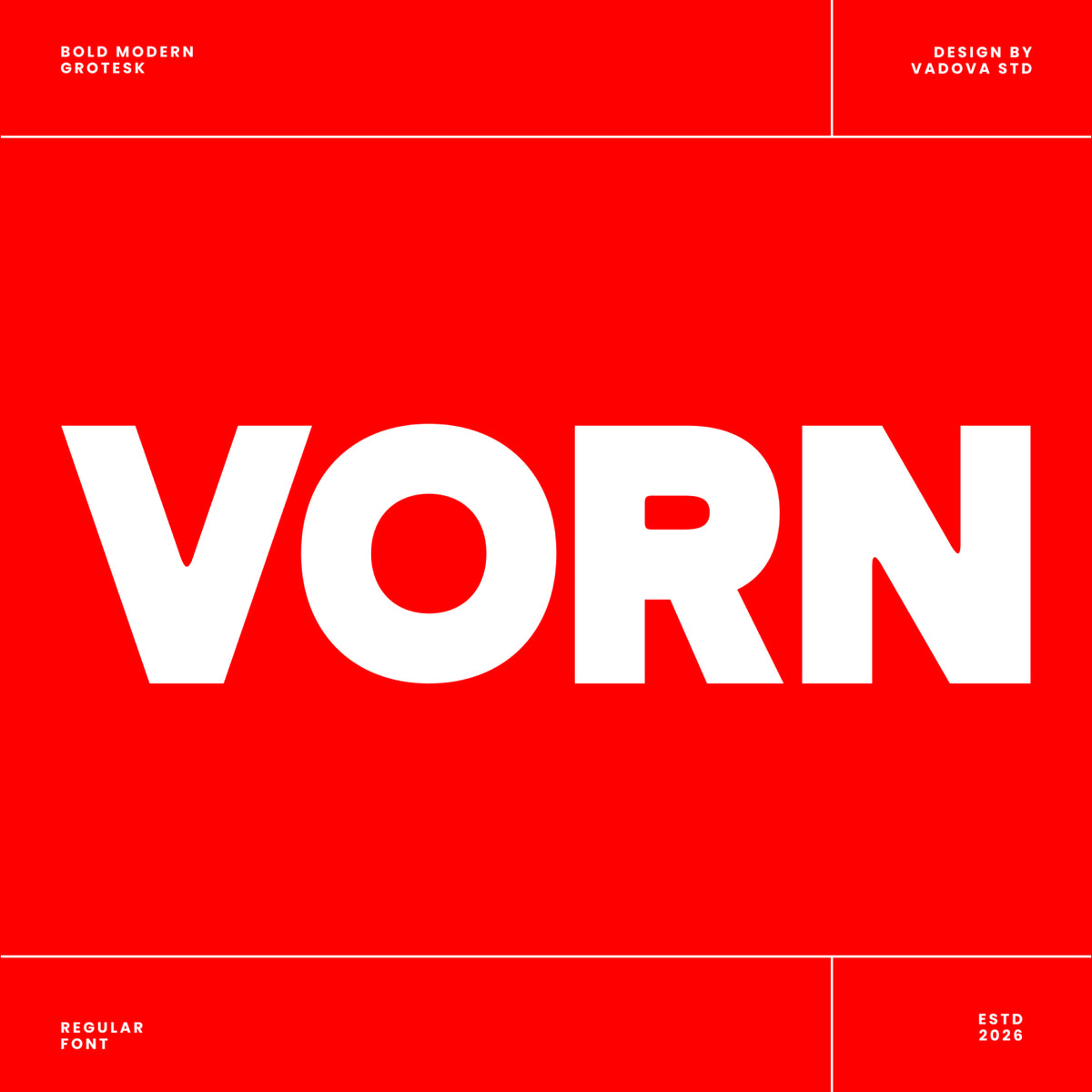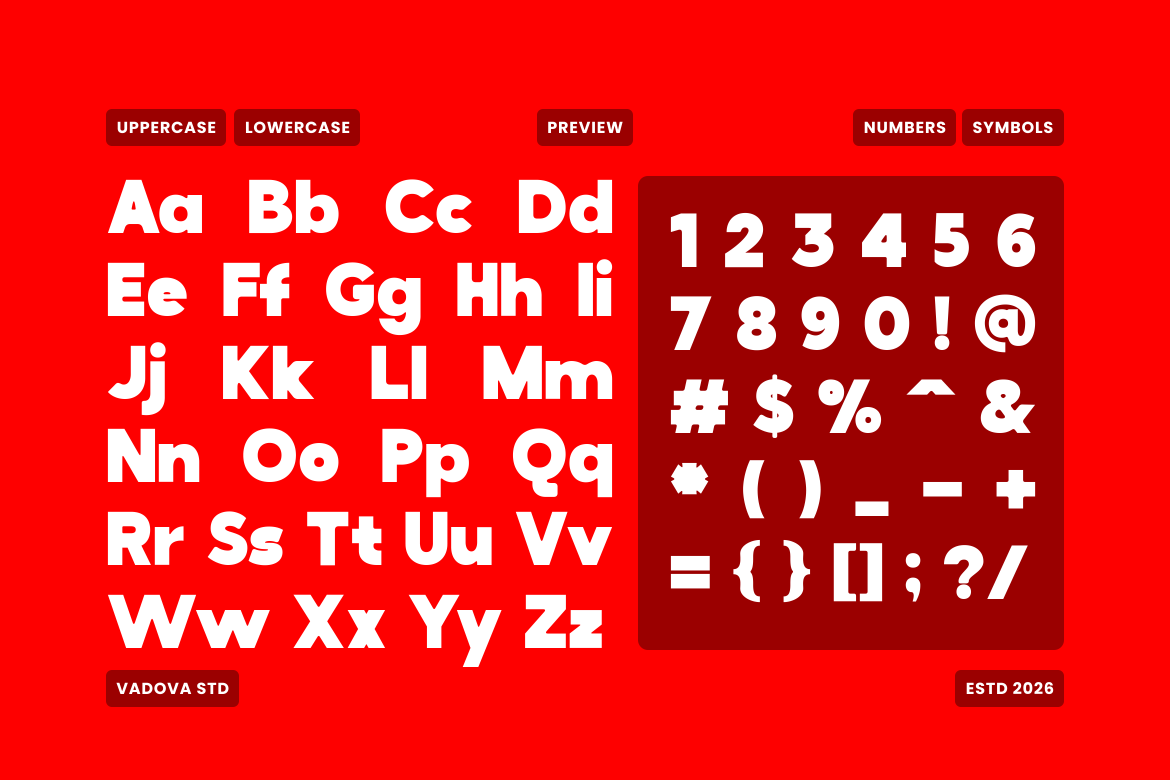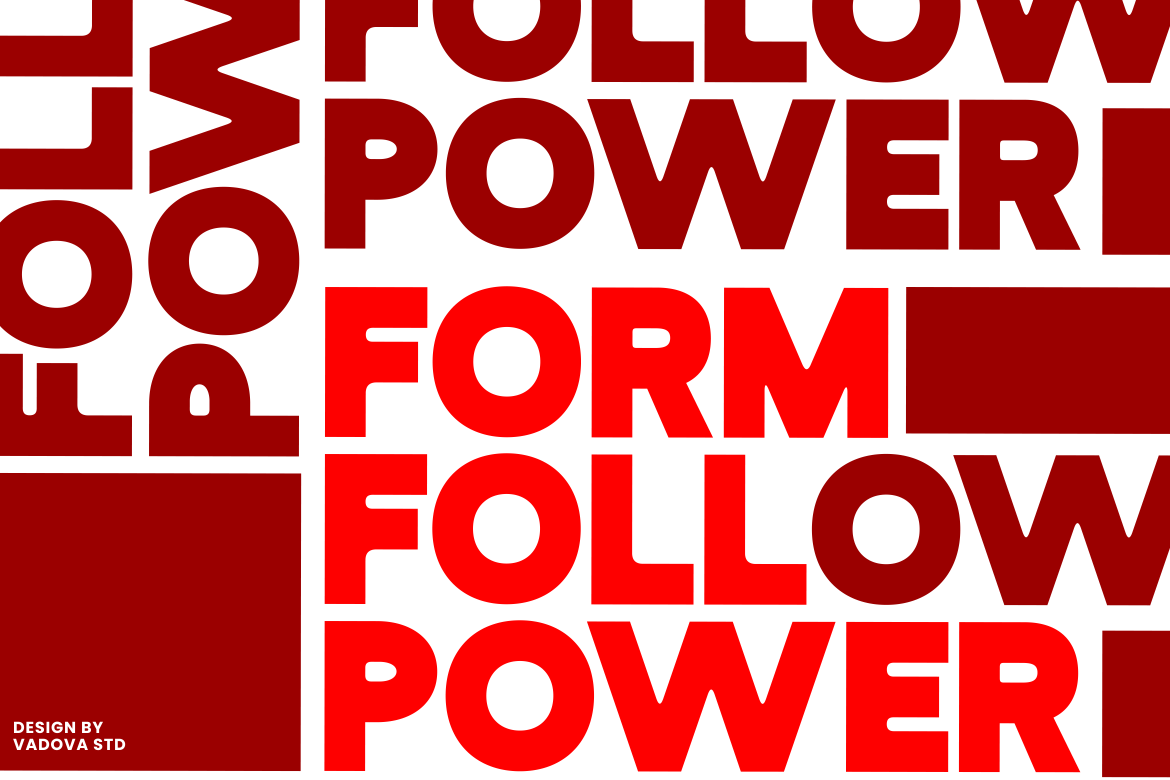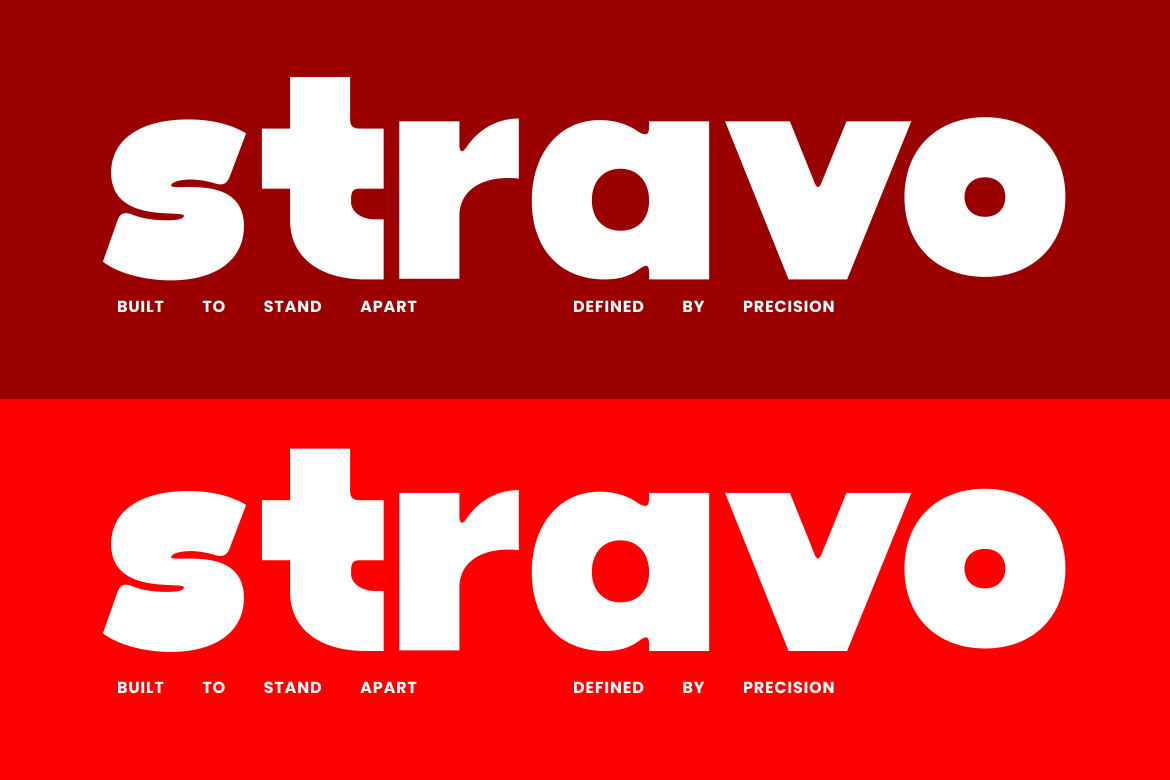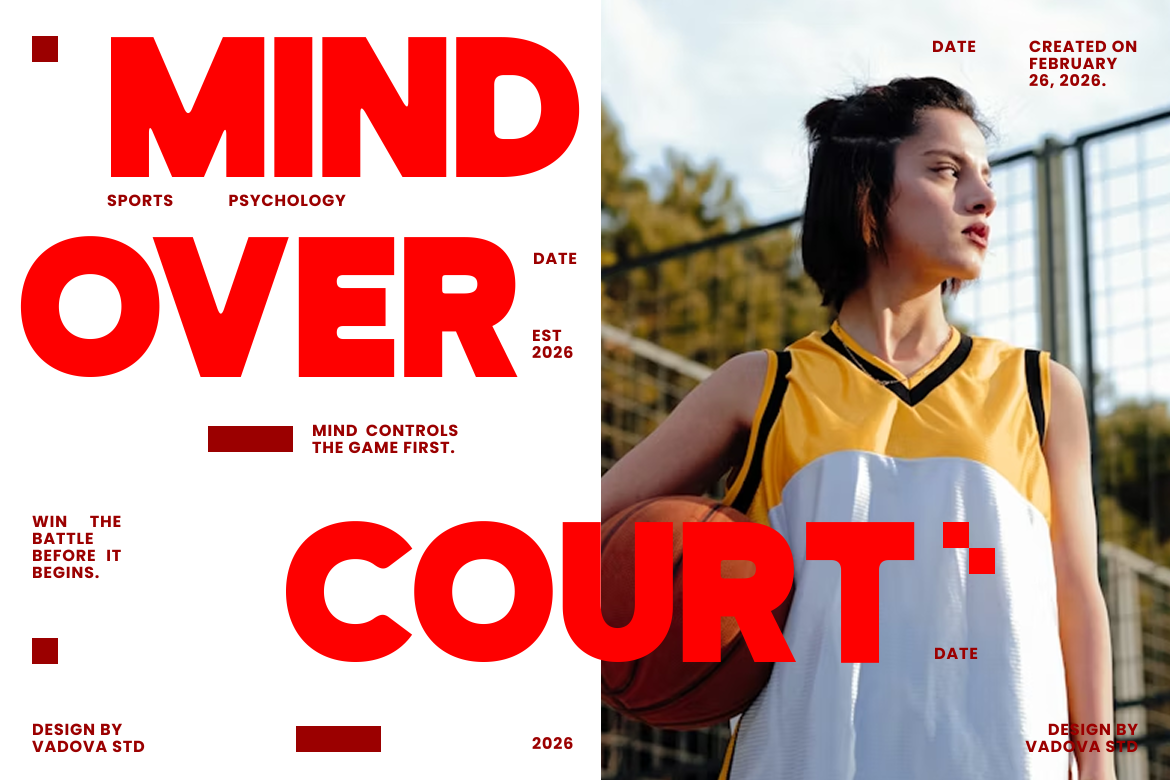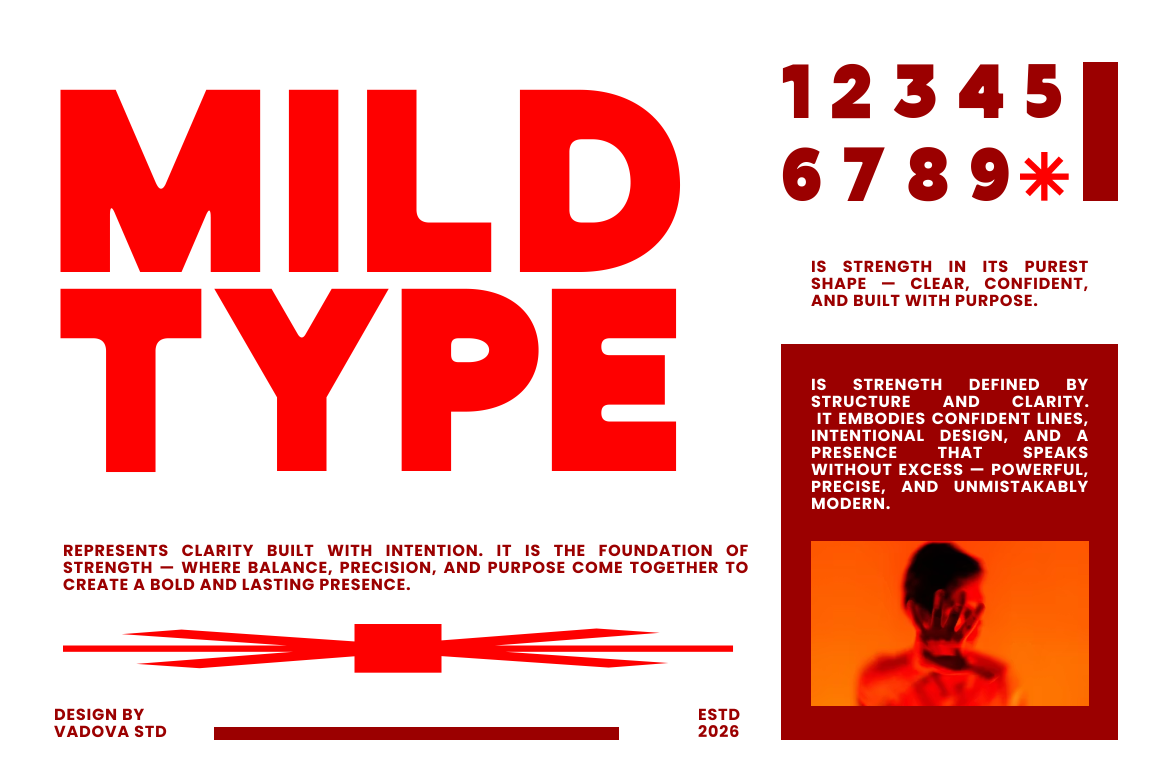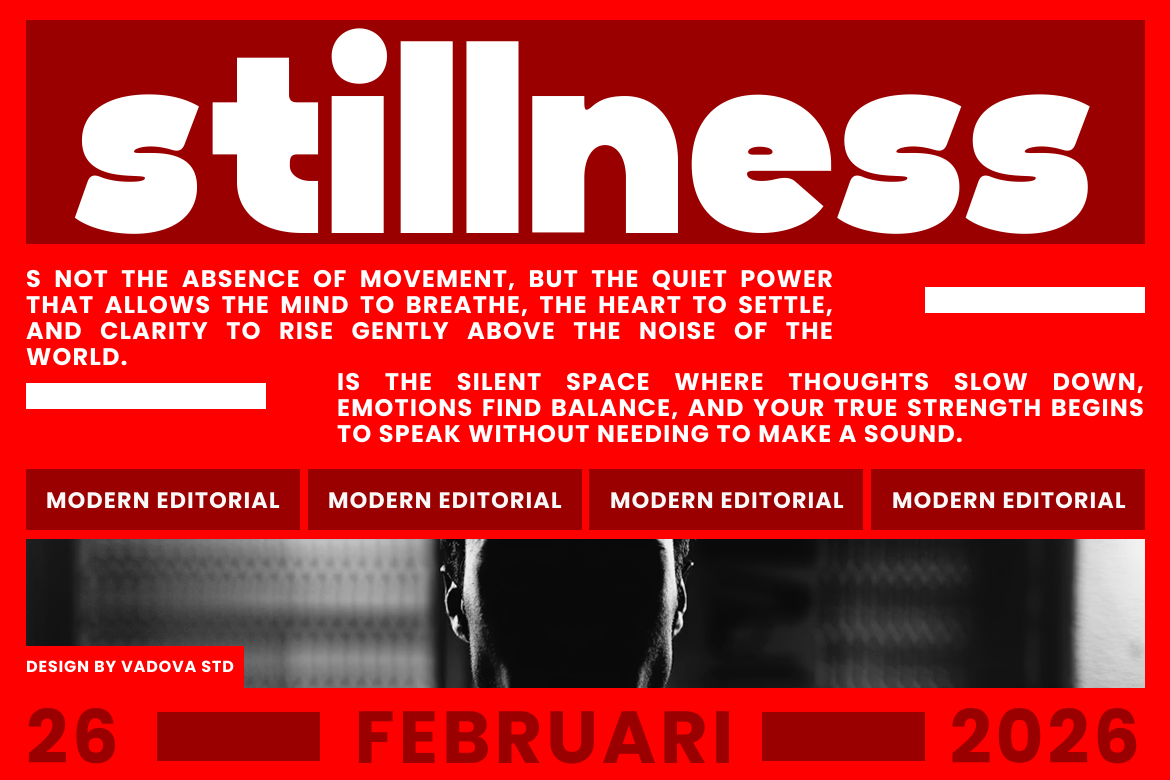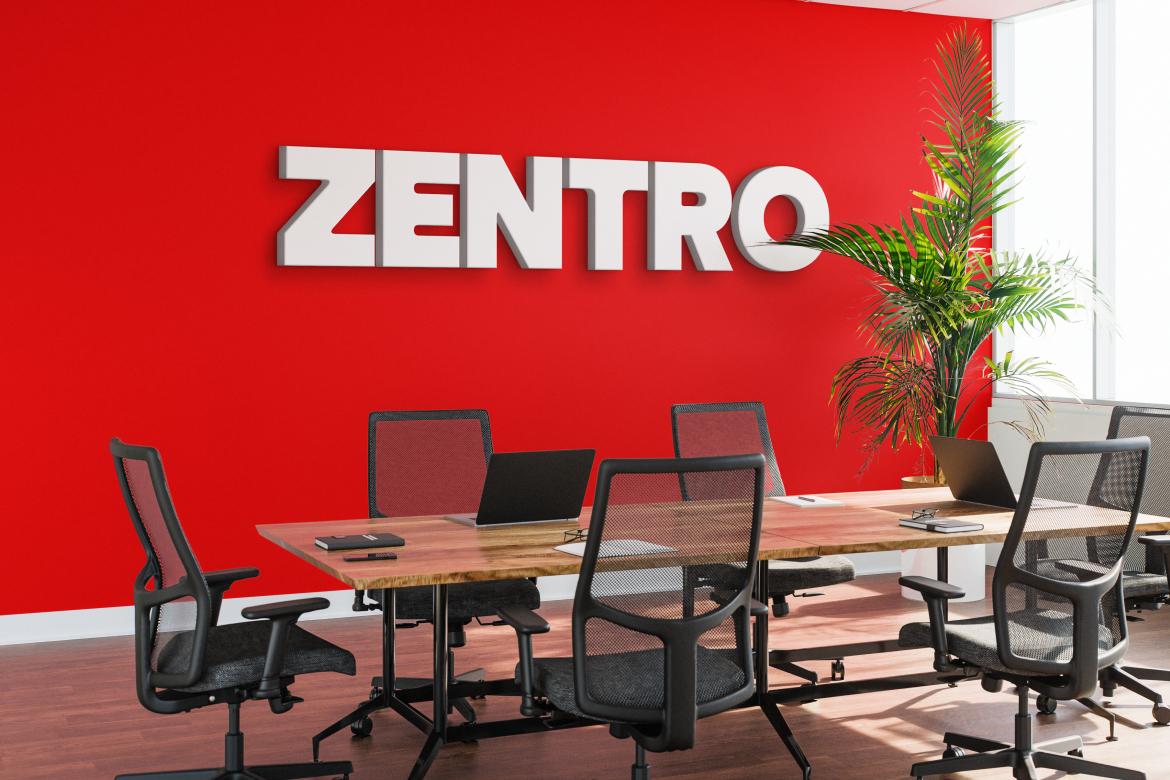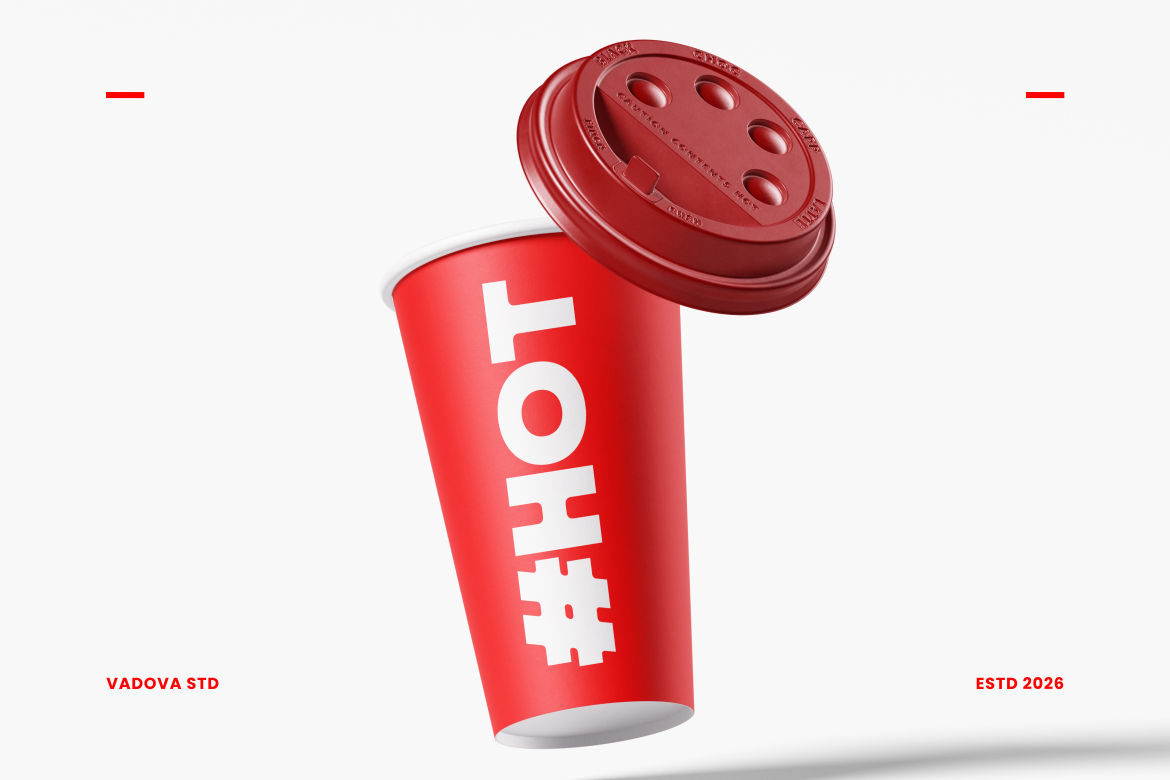
Vorn Bold Modern Grotesk Font
Vorn is a bold modern grotesk sans serif font designed for strong visual impact and contemporary branding. Built with thick geometric strokes and confident letterforms, this typeface delivers a powerful typographic presence that stands out across modern design applications. The structure is inspired by classic grotesk typography while incorporating modern proportions and clean curves. Its heavy weight and balanced spacing make Stravo ideal for large headlines, bold branding, posters, and striking editorial layouts.
Relevance and Uses Cases Vorn is designed for projects that demand bold and confident typography. It works perfectly for branding identities, advertising campaigns, posters, packaging, sports branding, tech branding, social media graphics, and modern editorial headlines where strong visual impact and clear readability are essential.
Vorn is a bold modern grotesk sans serif font featuring thick geometric strokes and heavy weight with balanced spacing. It includes uppercase and lowercase characters, numerals, and punctuation, available in TTF, OTF, and WOFF formats.